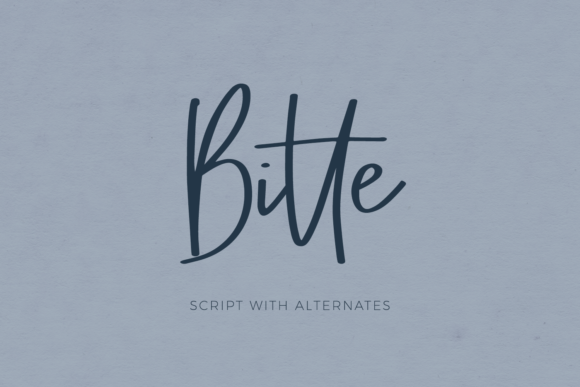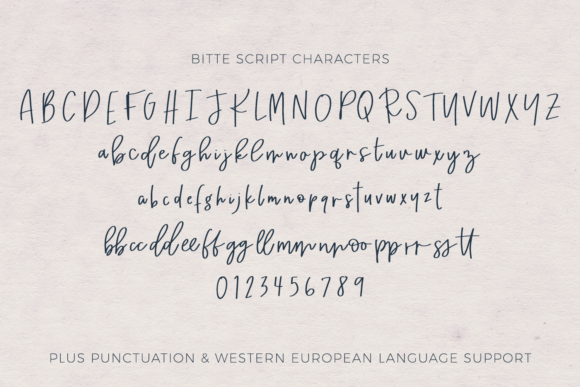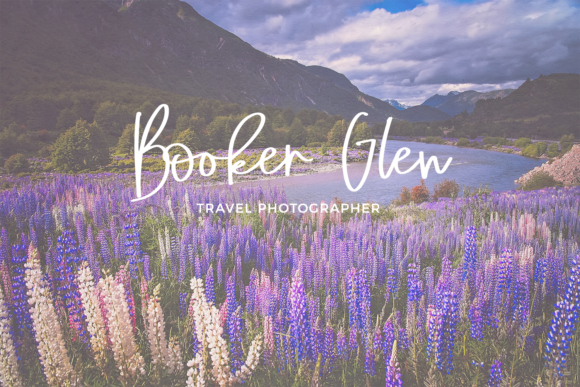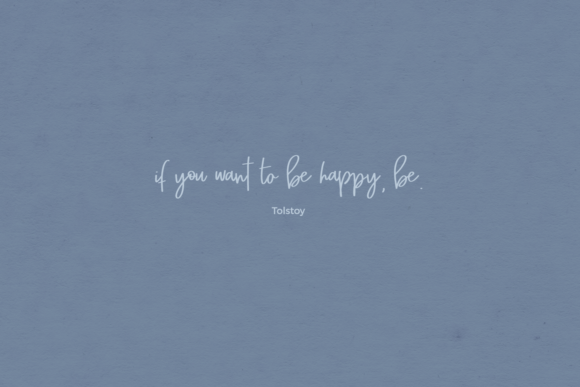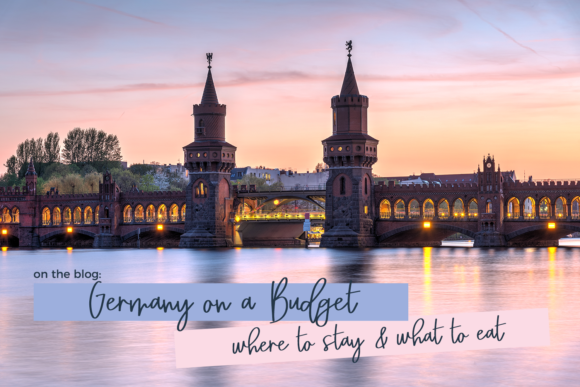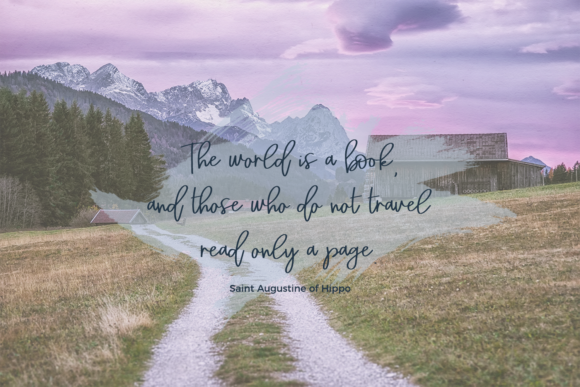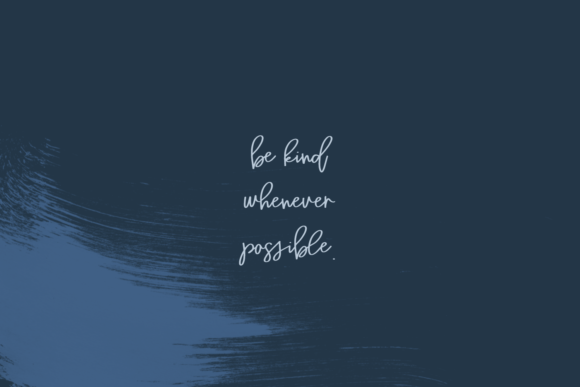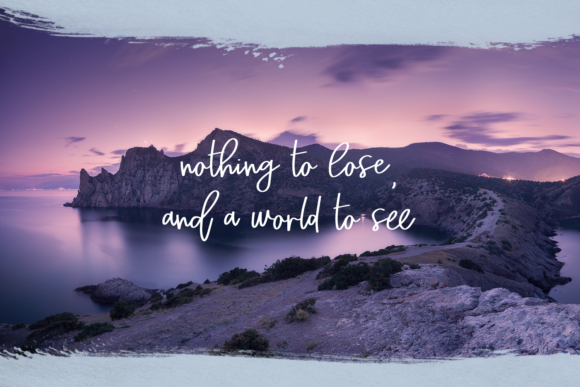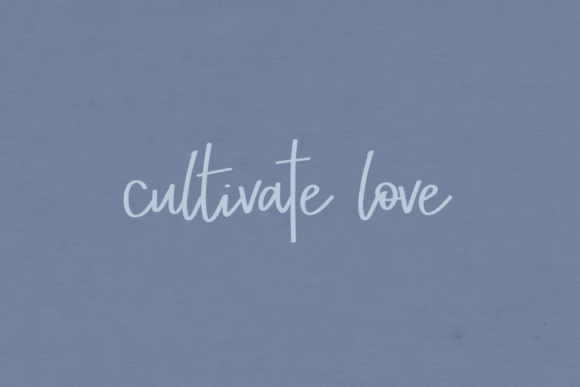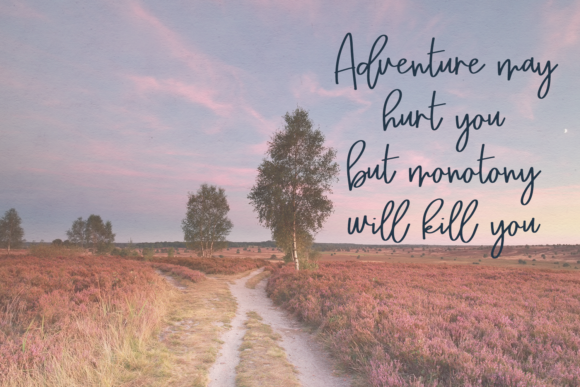
Bitte Font
Bitte delivers a gorgeous and light script experience that pays homage to classic calligraphy. It will turn any design project into a true standout!